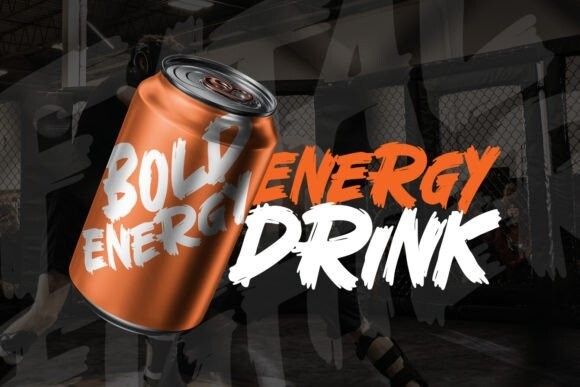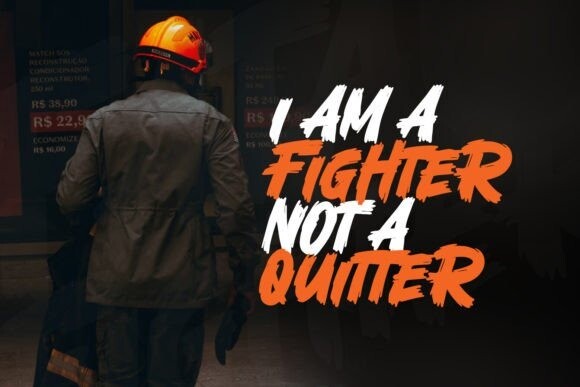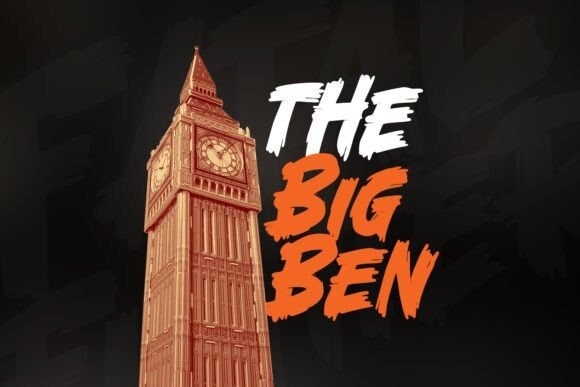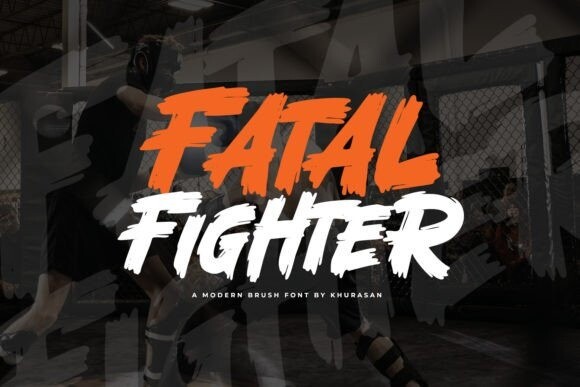
Fatal Fighter Font
Fatal Fighter Font is a handbrushed font that is modern and fresh, and will bring a warm and inviting feel to your business. This is a modern bold brush font perfect for posters, logos, magazines, book covers, banners, and many more! Get this quirky handwritten font, and use it to create lovely designs! It can easily be matched to an incredibly large set of projects, so add it to your creative ideas and notice how it makes them stand out!